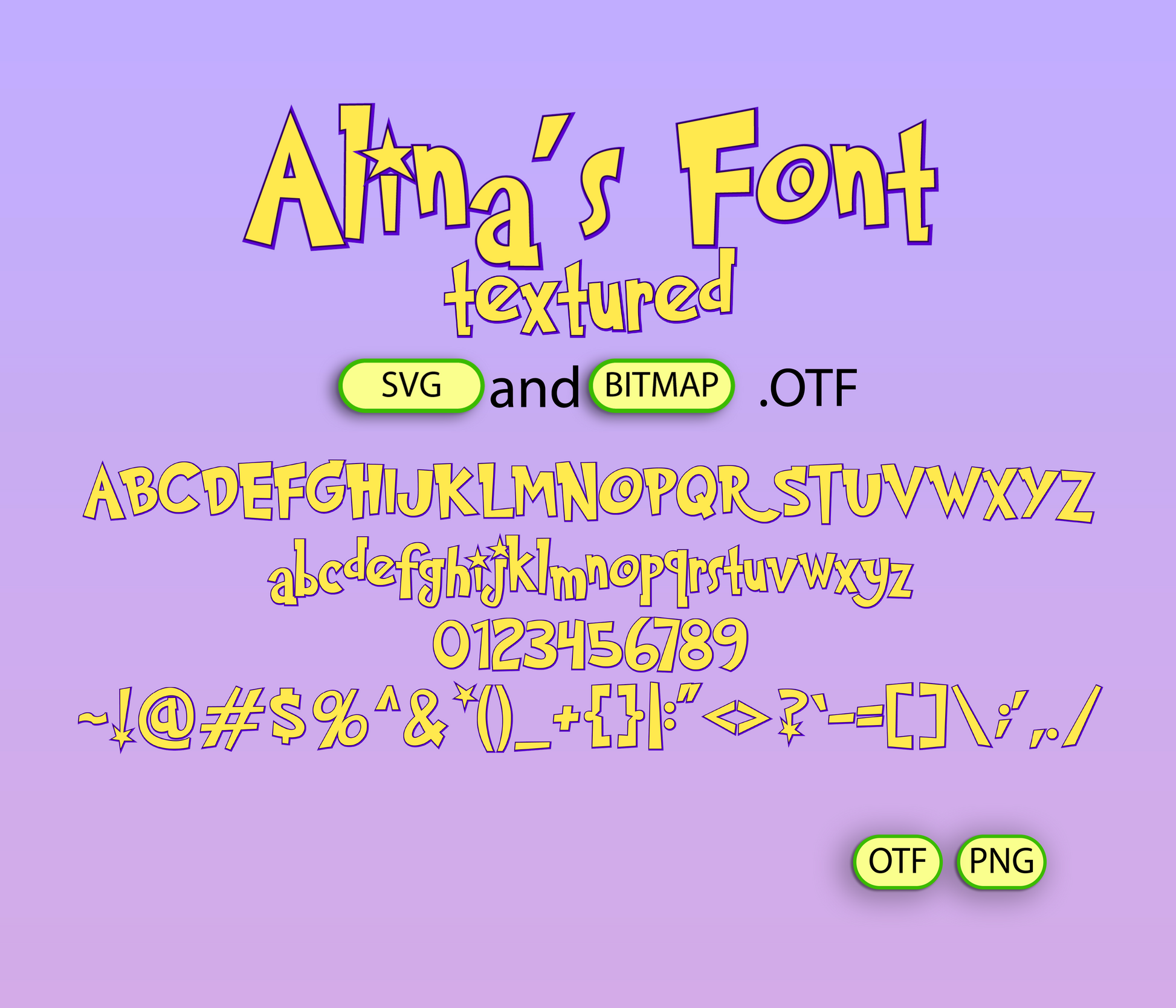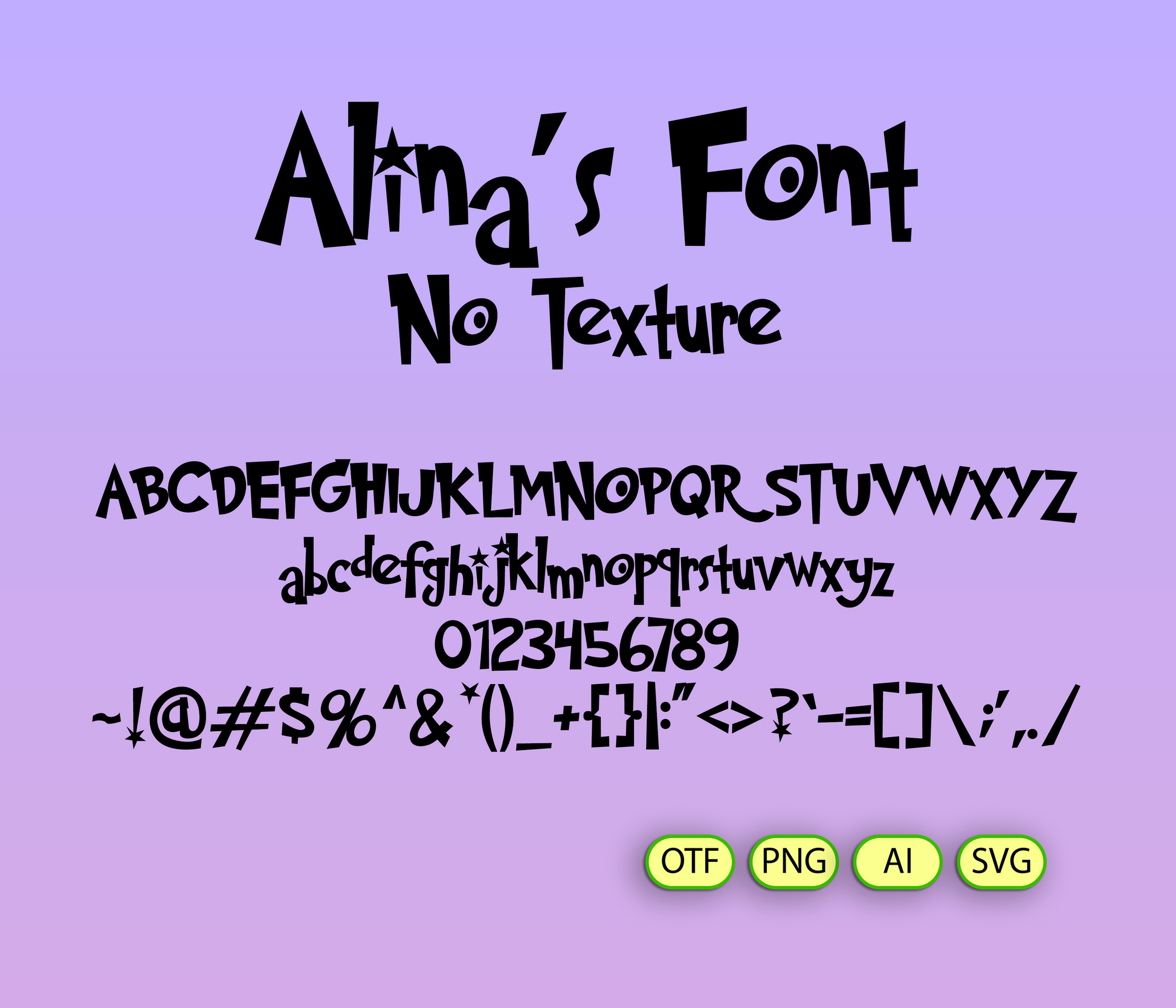
Magical Wishes Font Textured
Enter a world of whimsical magic with our Magical Wishes font, capturing the quirky charm of fairy godparents and enchanted adventures. Perfect for creators, party planners, and designers seeking to add a touch of magical mischief to their projects. Create playful invitations, whimsical merchandise, or enchanted content that sparkles with fun.
Our Magical Wishes font features playful swirls and whimsical characters reflecting the fun spirit of fairy magic. Ideal for:
1. Event Promotions: Enchanted invites, posters, banners for birthday parties, magical celebrations
2. Merchandise Design: T-shirts, posters, accessories capturing the essence of wish-granting fun
3. Digital Media: Transform websites, blogs, social media with magical headers and graphics
4. Story Content: Perfect touch for fairy tales, wish books, enchanted art
5. Personal Projects: Add magic to scrapbooking, DIY crafts, home decor inspired by fairy fun
Our Magical Wishes font includes textured and non-textured variants, ensuring compatibility with all software, including Canva. This feature allows easy incorporation into designs for users of all skill levels.
Many seek an online font generator to mimic the look of the Magical Wishes Font. Beware! No generator can match the quality of our font, which comes in two versions: a textured colored font and a simple version, perfect for cutting machines.
Our font celebrates the magic of wishes and childhood wonder, empowering your designs with its playful spirit. Whether crafting party materials, designing merchandise, or adding a magical touch to personal projects, this font communicates the essence of fun and enchantment.